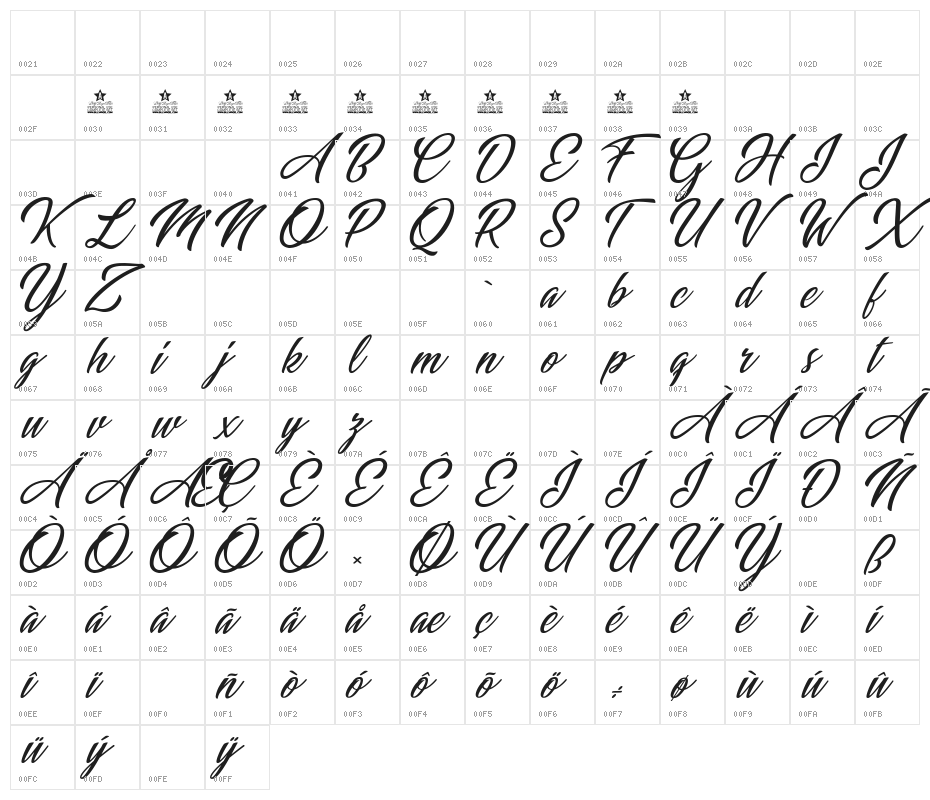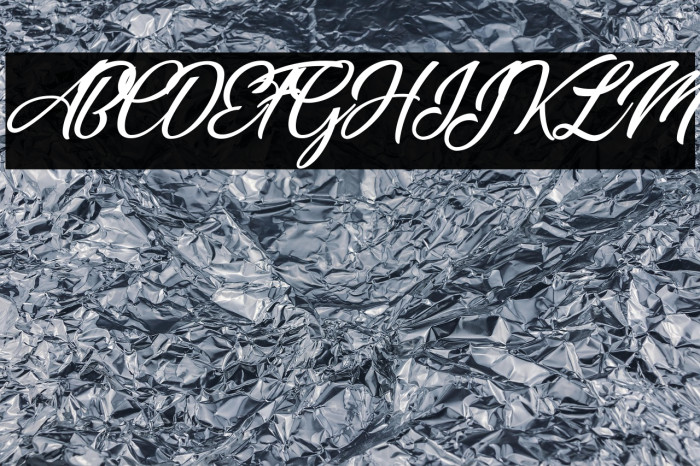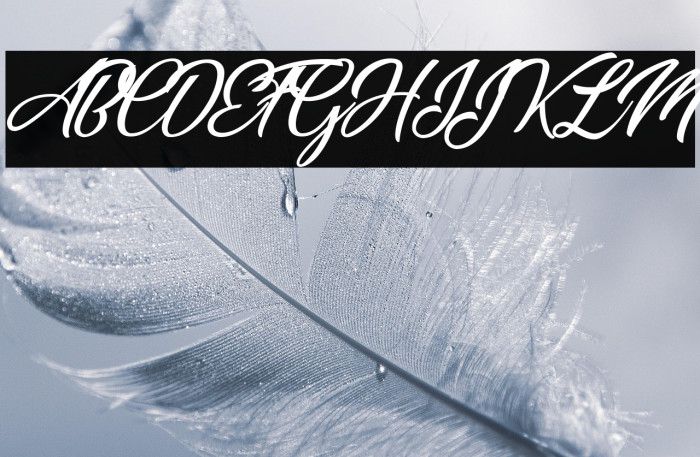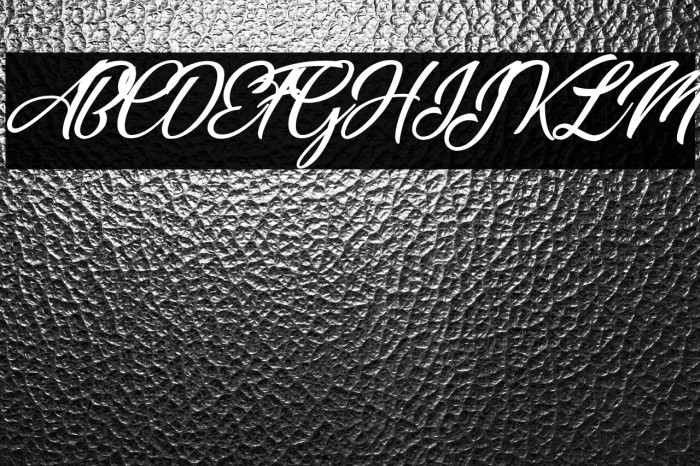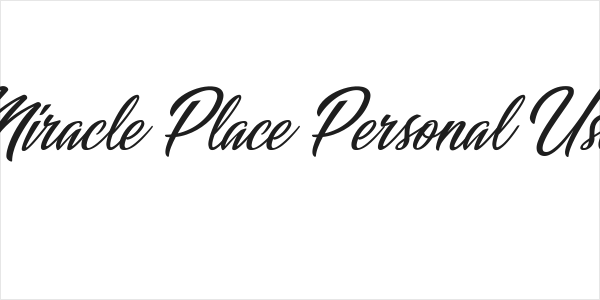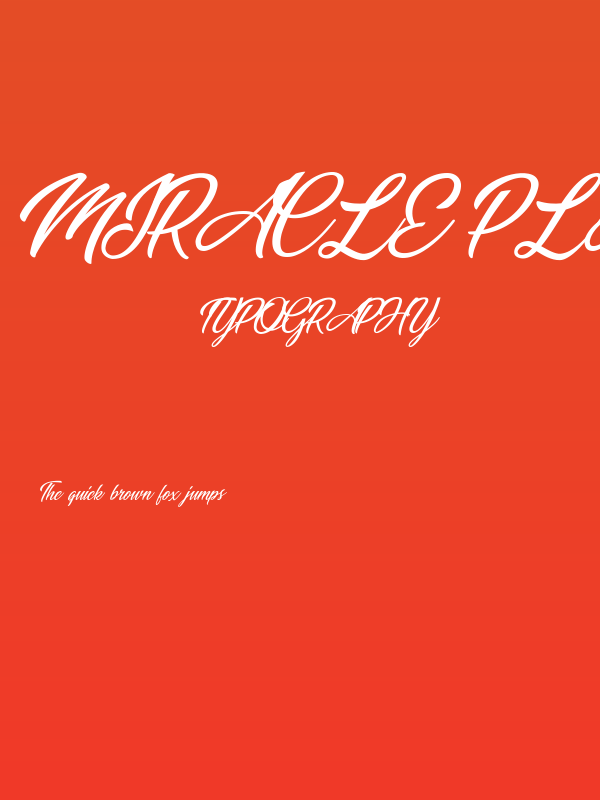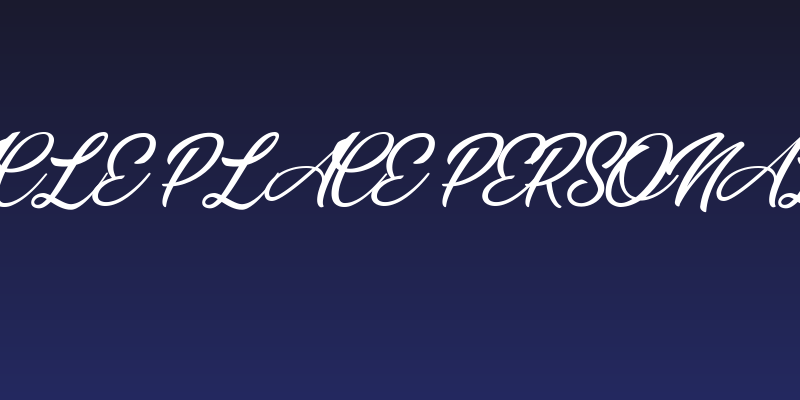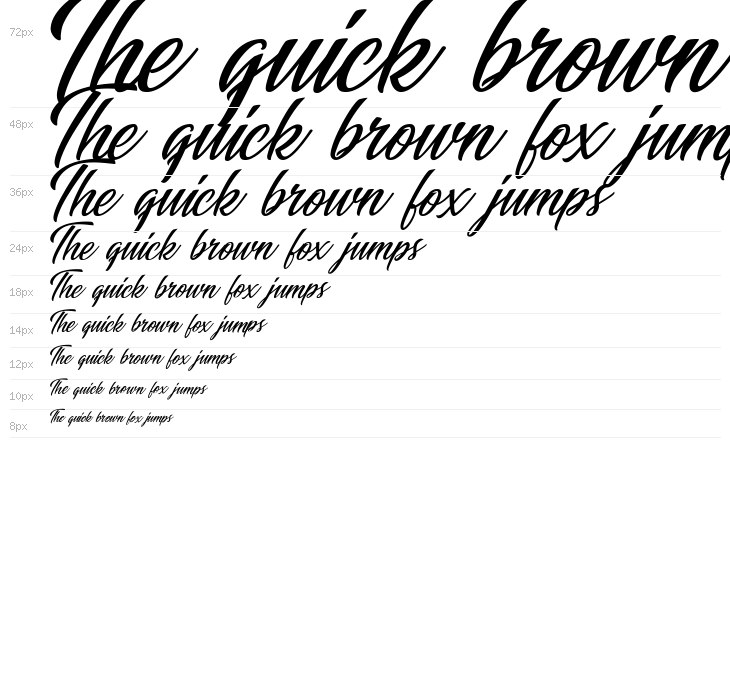
Miracle Place Personal Use Font
Miracle Place Personal Use Description
This font features an elegant and flowing script style, characterized by its smooth, cursive lines and graceful curves. The uppercase letters exhibit a sophisticated flair with elongated strokes, while the lowercase letters maintain a consistent, fluid motion. The overall appearance is both stylish and refined, making it suitable for projects that require a touch of elegance and sophistication. The font's design is reminiscent of traditional calligraphy, yet it maintains a modern sensibility, making it versatile for various applications.
| Proposed Projects | Ideal for wedding invitations, branding, greeting cards, and elegant packaging designs. |